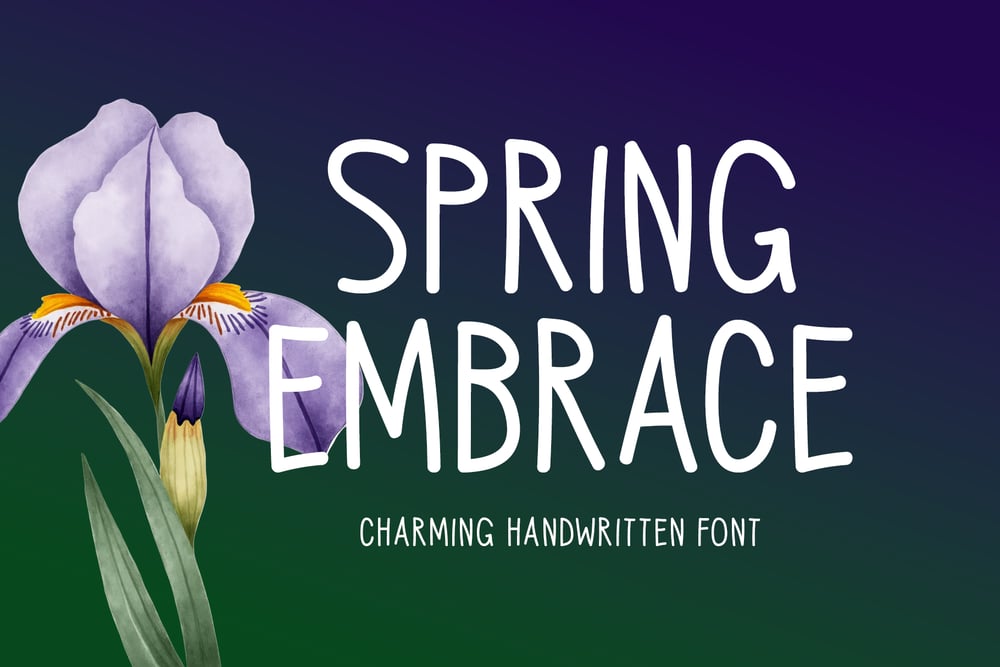
Spring Embrace
Spring Embrace font
Spring Embrace Font Family was designed by Md Shohail Bhuian and published by Seemly Fonts. Spring Embrace contains 1 styles and family package options. The charming handwritten font Spring Embrace radiates coziness and warmth. This font’s natural appeal and gentle, flowing strokes make it ideal for giving any creative endeavor a unique touch. Whether you’re creating stationery, logos, t-shirts, or fashionable print materials, Spring Embrace adds style and genuineness to your work. This adaptable typeface adds fun and imagination to your projects and is perfect for album covers, posters, flyers, and website headers, among other things.